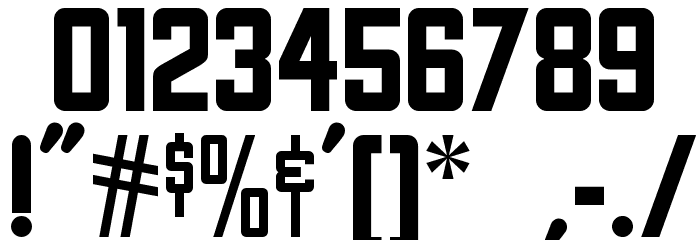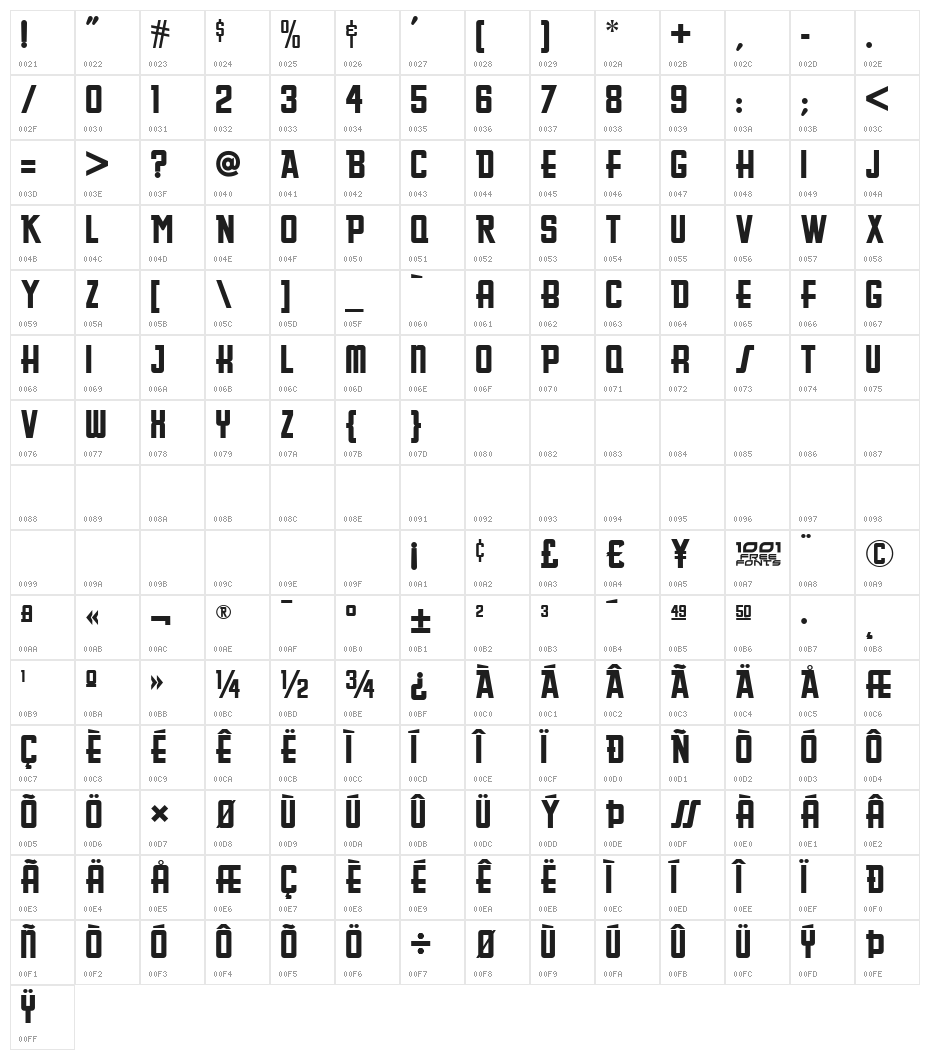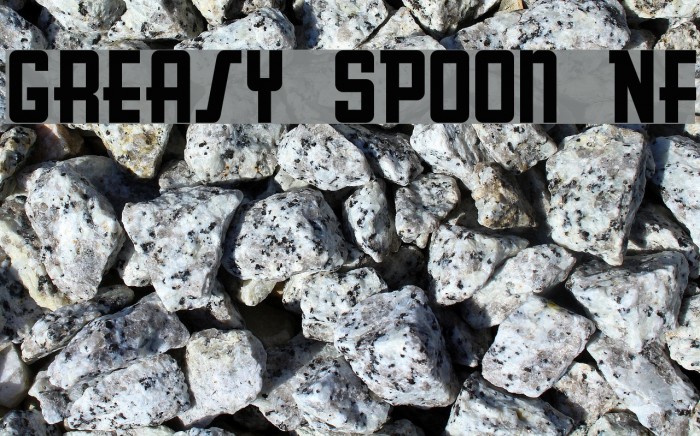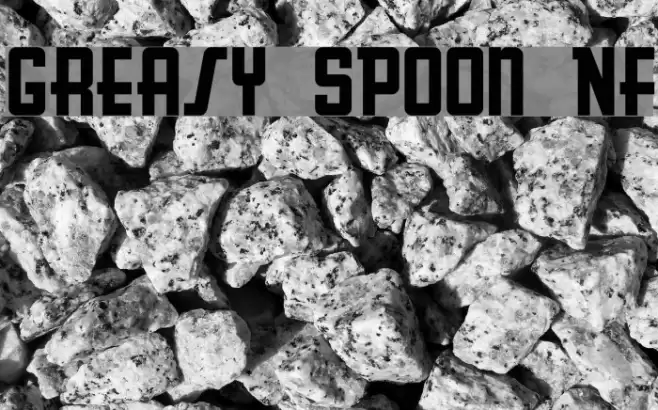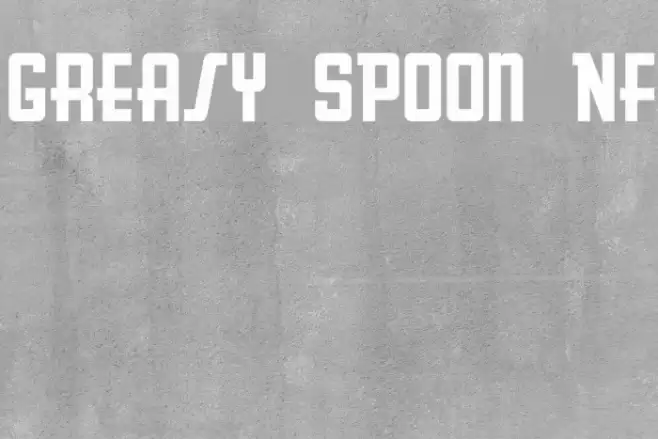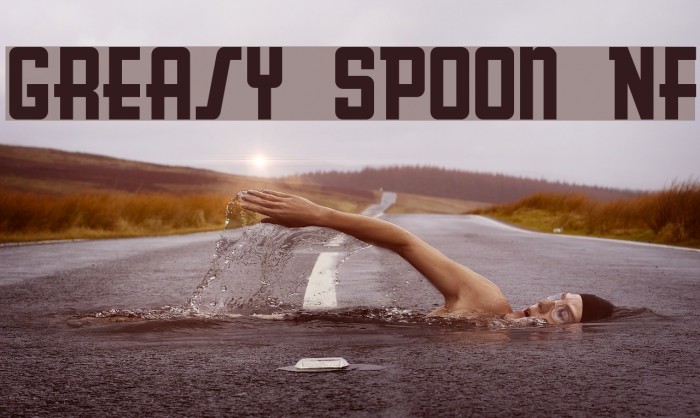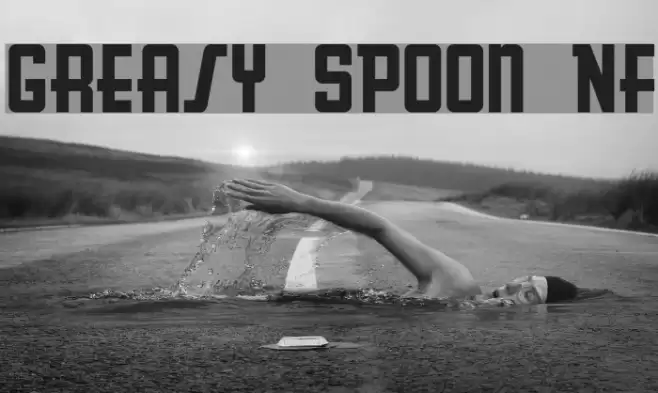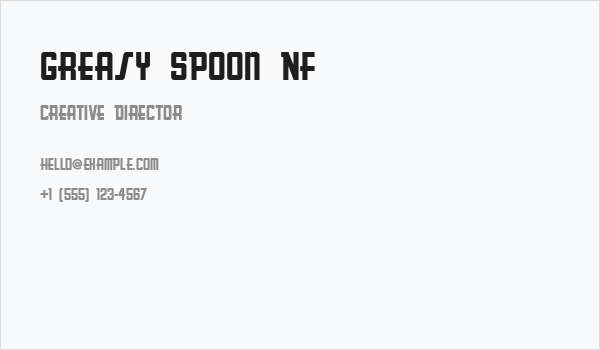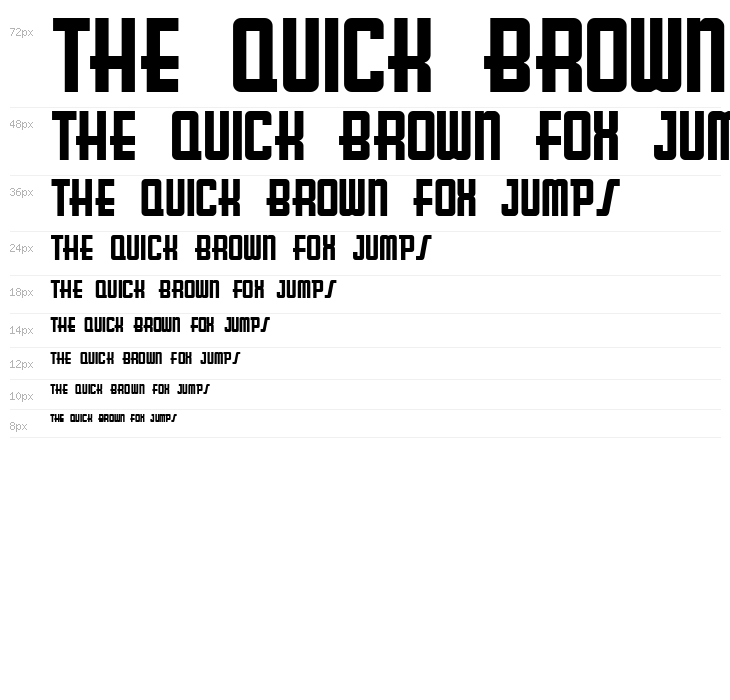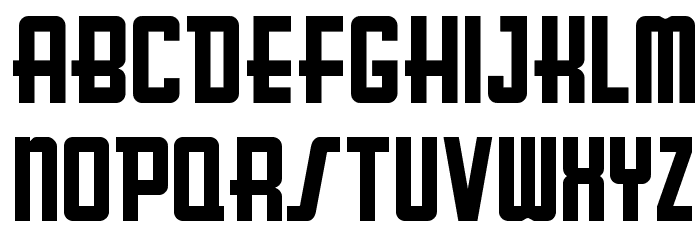
Greasy Spoon NF Font
Greasy Spoon NF Description
This bold, geometric font features strong, angular lines and a robust presence. The uppercase letters are blocky and uniform, with a consistent height and width that give them a powerful, impactful look. The lowercase letters maintain the same boldness, with slightly rounded edges that add a touch of softness to the otherwise rigid structure. Numbers are equally bold and clear, ensuring readability. The special characters are designed with the same attention to detail, making them stand out while maintaining harmony with the rest of the font. Its overall style is reminiscent of vintage diner signage, evoking a sense of nostalgia and charm.
| Use Case | Headlines, Logos, Signage |
| Proposed Projects | Ideal for retro-themed designs, restaurant menus, signage, and branding projects that require a bold, nostalgic touch. |